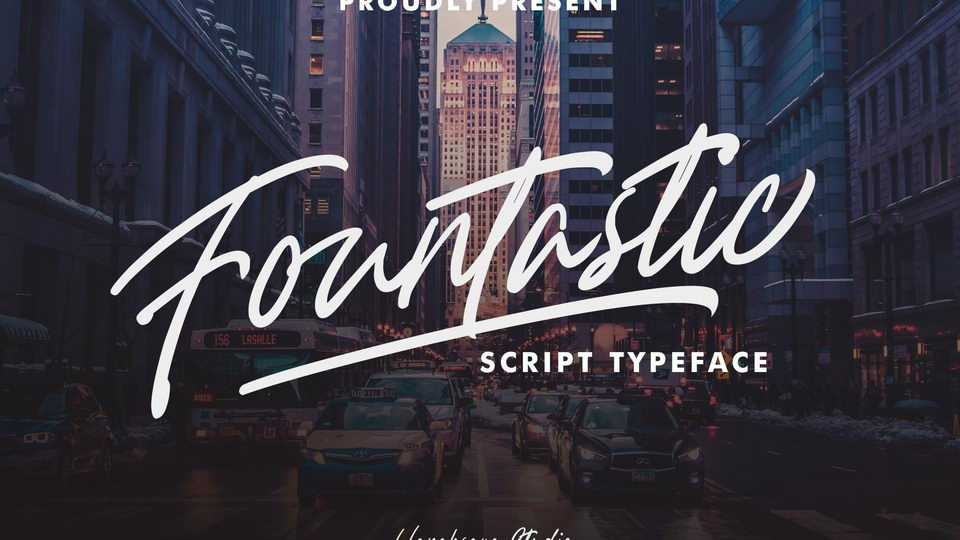
Download Fountastic Script font, a modern casual typeface, made by hand and similiar with a manual handwriting or lettering. So, you can easily make lettering with just a font!
Designer: Hanaksara Studio